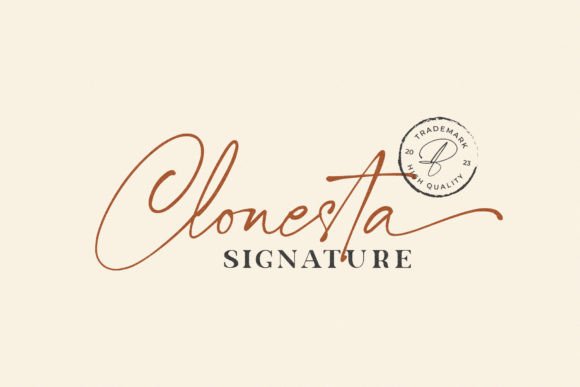
Introducing Clonesta Signature Font, the ultimate choice for those seeking the best font for web browsers! Created by Beautypes, this organic handwritten font is not just your ordinary script font - it's a masterpiece crafted with love and passion.
With its captivating and elegant design, Clonesta Signature Font is perfect for various purposes. Whether you're branding your business, creating a personal signature, designing a wedding invitation, promoting your products, or enhancing your product packaging, this font has got you covered. Its versatility knows no bounds, making it a go-to choice for all your creative needs.
What sets Clonesta Signature Font apart from the rest is its PUA encoding. This means that accessing the font's delightful glyphs and swashes is effortless. Unlock a world of endless possibilities and add a touch of uniqueness to your projects with the exclusive characters and decorative elements this font offers.
Embrace the power of creativity and make a lasting impression with Clonesta Signature Font. Its graceful strokes and fluid lines evoke a sense of elegance and sophistication, instantly captivating the eyes of your audience. Stand out from the crowd and leave a memorable mark with this one-of-a-kind font.
But why settle for ordinary when you can have extraordinary? Clonesta Signature Font goes beyond just being a font - it's a statement. It exudes emotion, evoking feelings of beauty, charm, and authenticity. Let your words come to life and convey your message with utmost style and elegance.